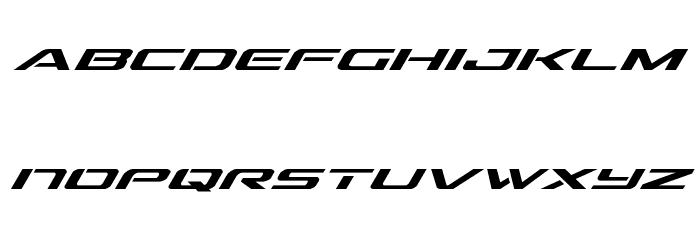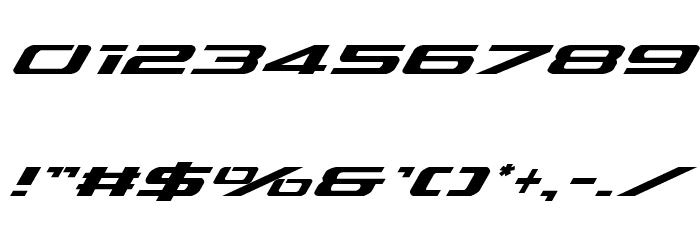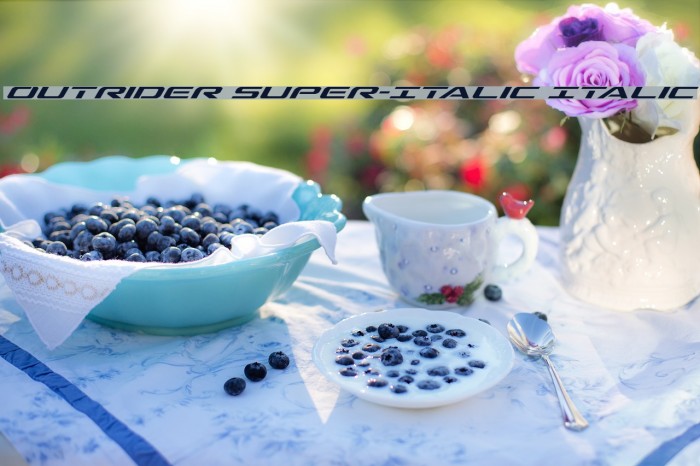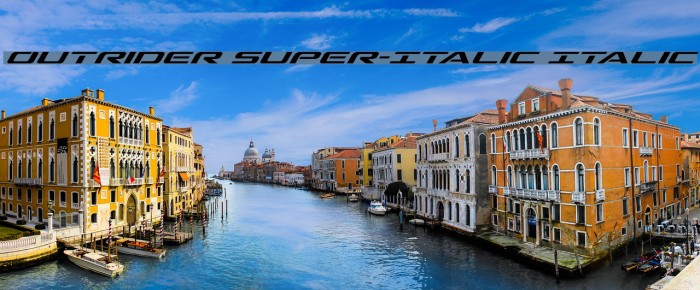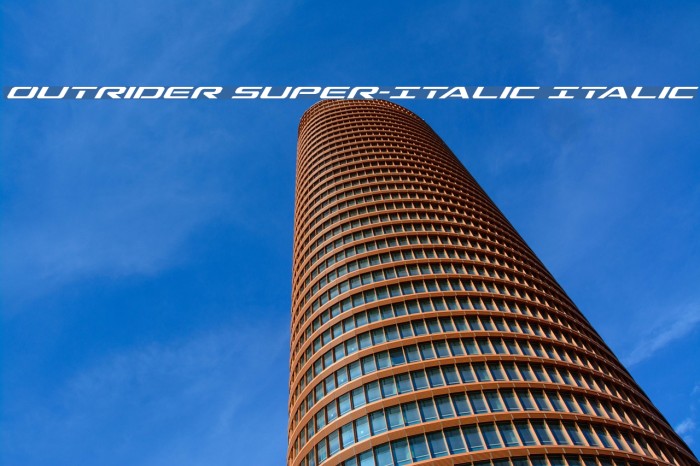
Outrider Super-Italic Italic Font
This font features a sleek, italicized design with a futuristic and dynamic appearance. The characters are sharply angled, giving a sense of motion and speed. The uppercase and lowercase letters maintain a consistent slant, enhancing the italic effect. The numerals and special characters follow the same stylistic approach, ensuring uniformity across all glyphs. The strokes are bold and consistent, with a medium contrast that adds to the font's readability while maintaining its modern aesthetic. This font is ideal for projects that require a contemporary and energetic look.
A sleek, italicized font with a futuristic and dynamic style.
- Proposed Projects: Ideal for branding, sports team logos, automotive designs, and tech-related projects.
- Use Case: Logos, Headlines, Branding